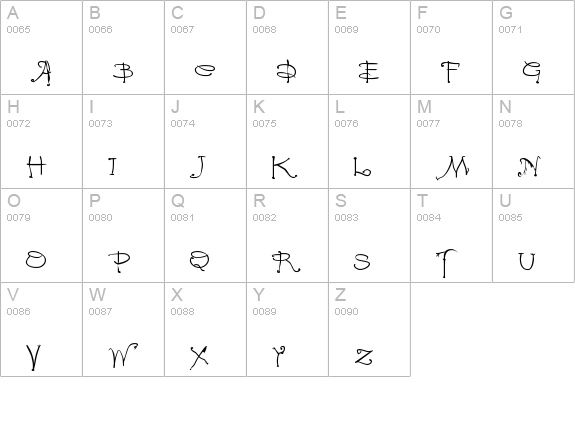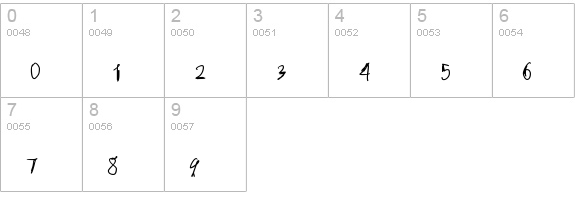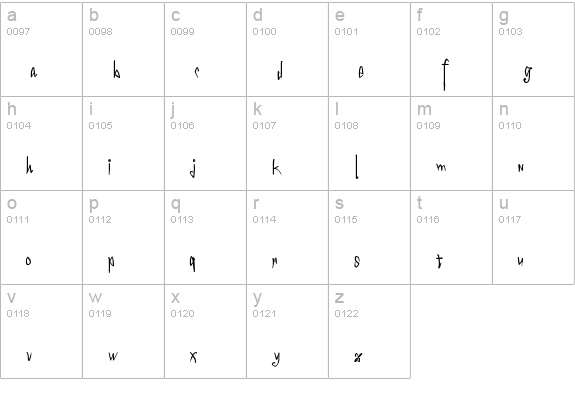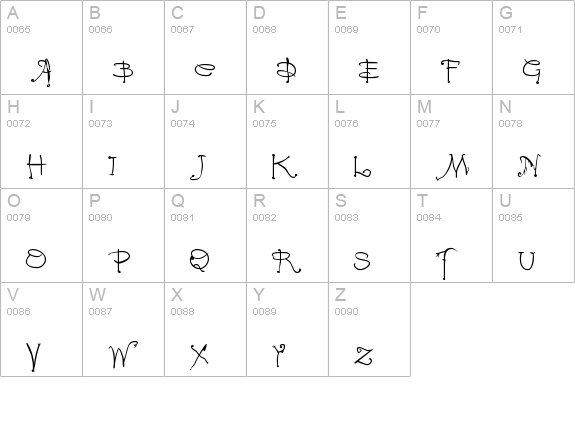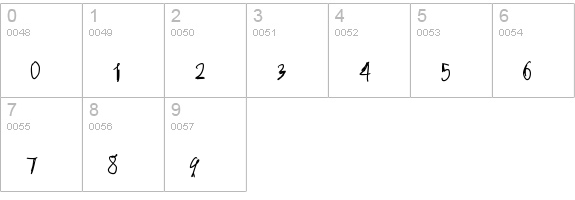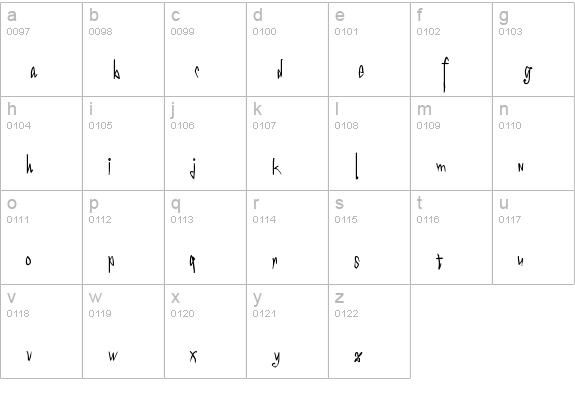
Vampyriqua Font Details
Introducing Vampyriqua, a captivating font that effortlessly blends elegance and mystery. With its delicate yet bold strokes, this font is perfect for conveying a sense of enchantment and intrigue in your designs. Vampyriqua is not just a font, it's an invitation to explore the realms of darkness and beauty. Its unique and intricate letterforms draw inspiration from Gothic architecture and the mystique of vampires, creating a truly mesmerizing visual experience. What sets Vampyriqua apart is its versatility. Whether you're designing a book cover, a logo, or crafting a hauntingly beautiful invitation, this font will breathe life into your creations. Its graceful curves and sharp edges create a harmonious balance, making it ideal for both headline and body text. But here's the best part: Vampyriqua is available for free! Yes, you read that right. You can download this captivating font at FontsMarket.com without spending a single penny. We believe that creativity should know no boundaries, and by making Vampyriqua freely available, we hope to inspire designers and artists to unleash their imagination without any constraints. So, go ahead and embrace the allure of Vampyriqua. Let it transport you to a world where darkness and beauty coexist, where every letter tells a story, and where your designs become a testament to the power of creativity. Download Vampyriqua today and let your imagination soar.